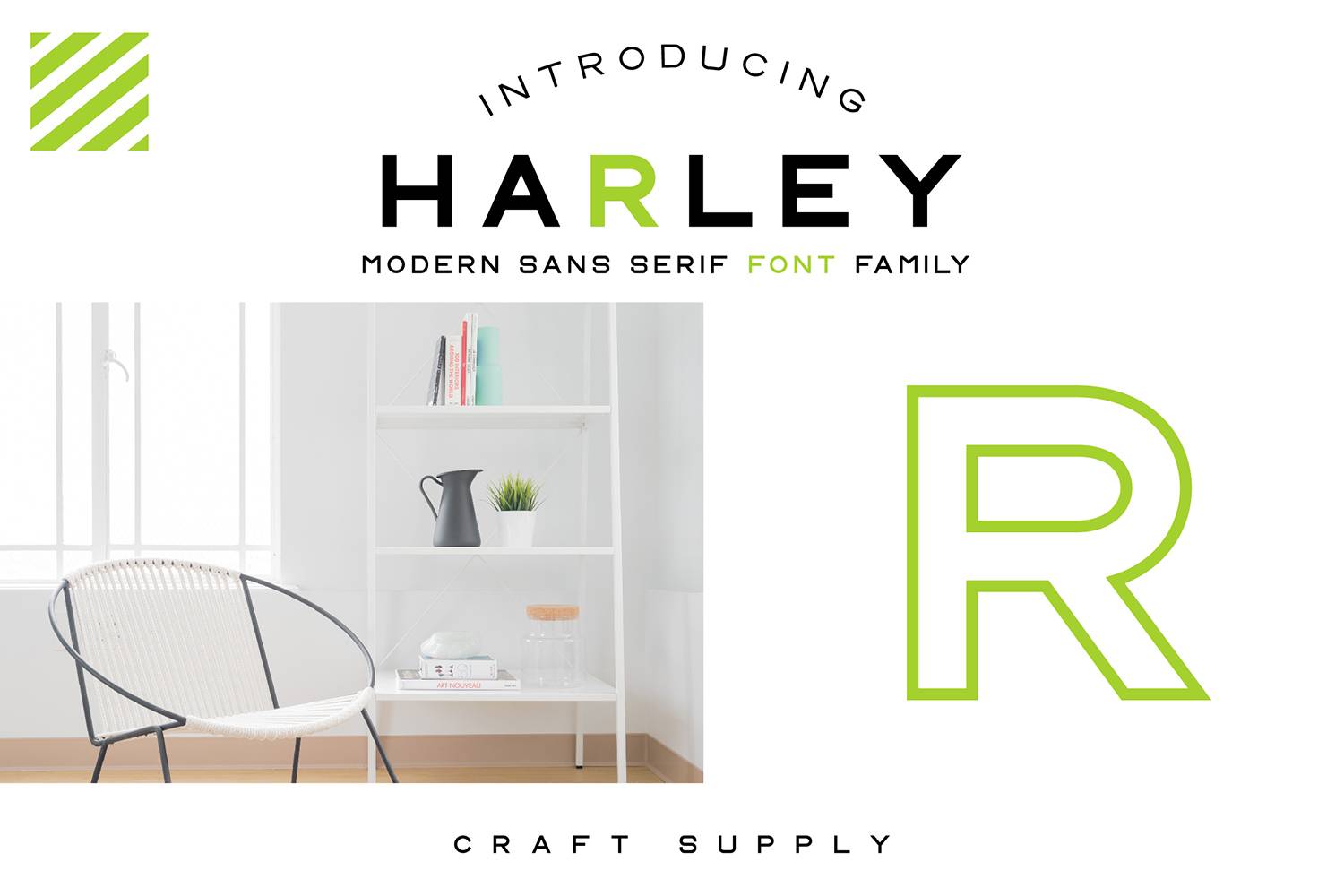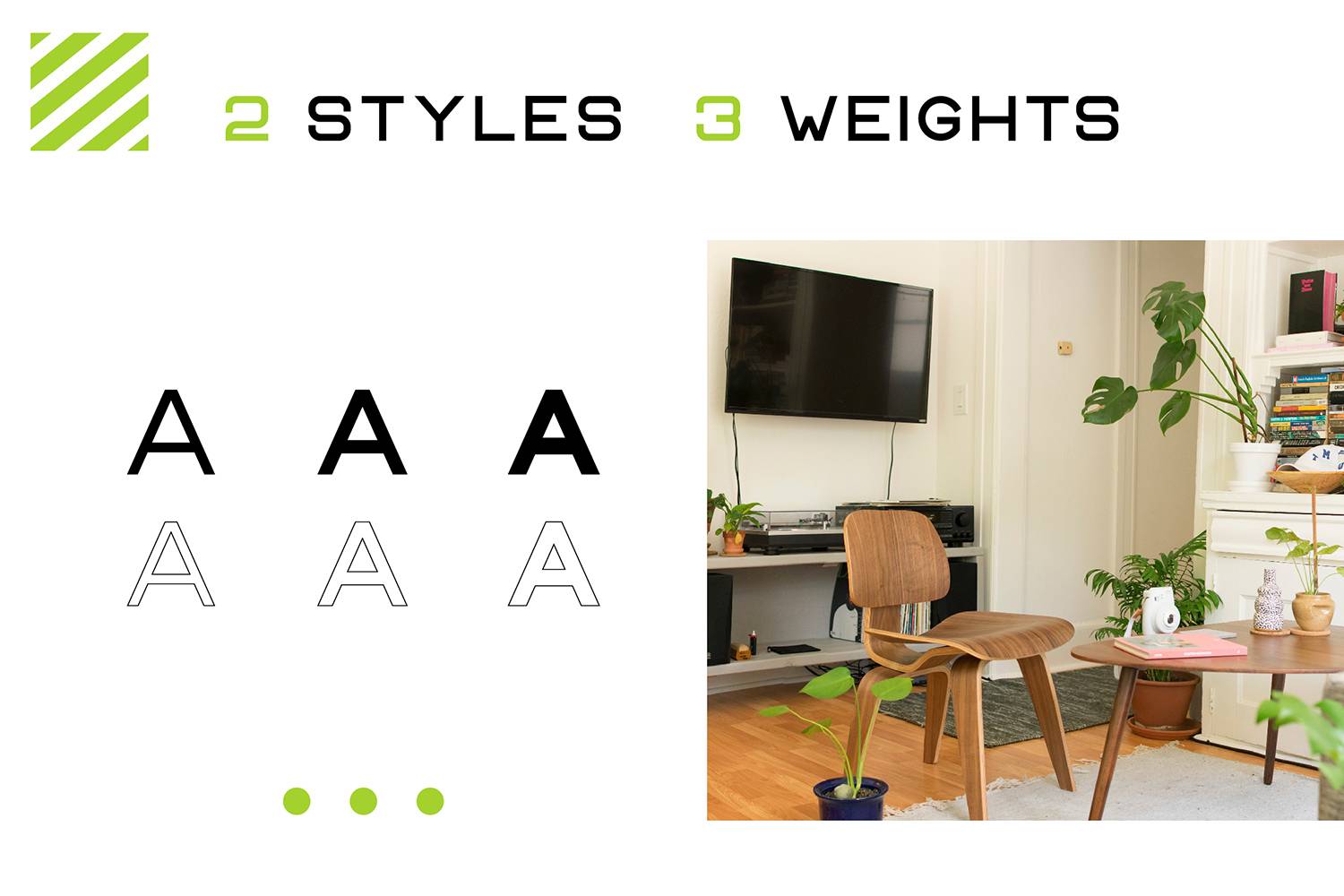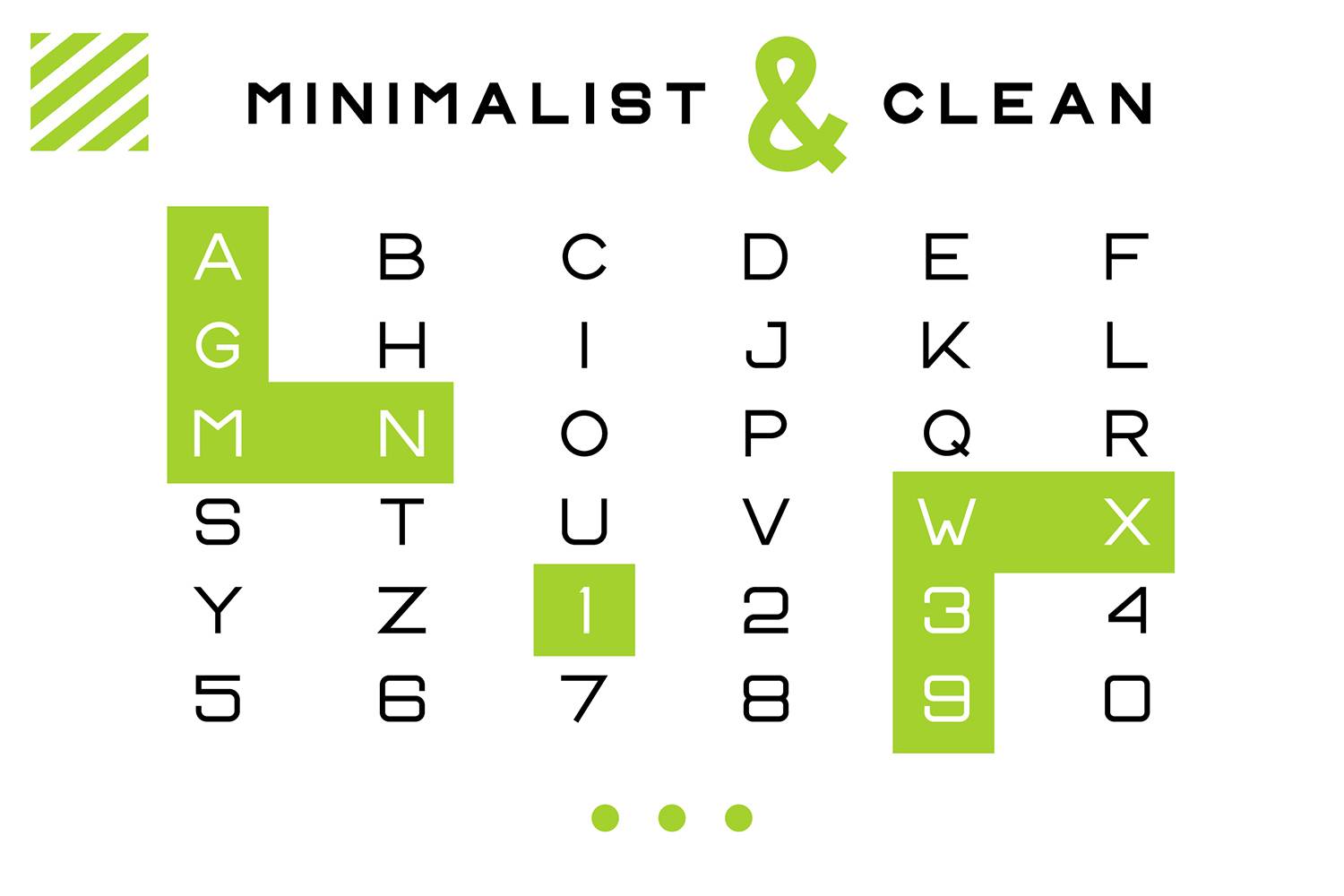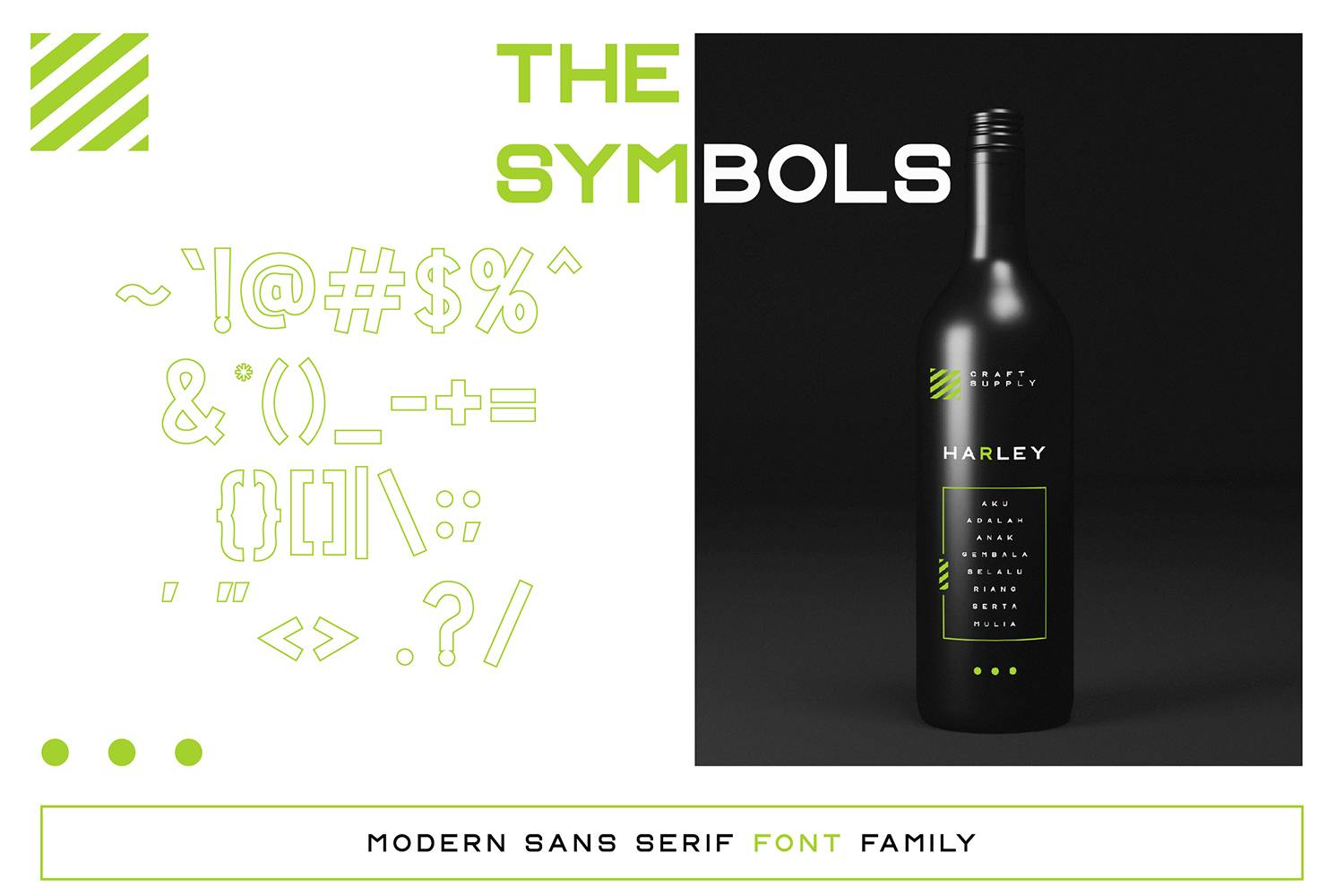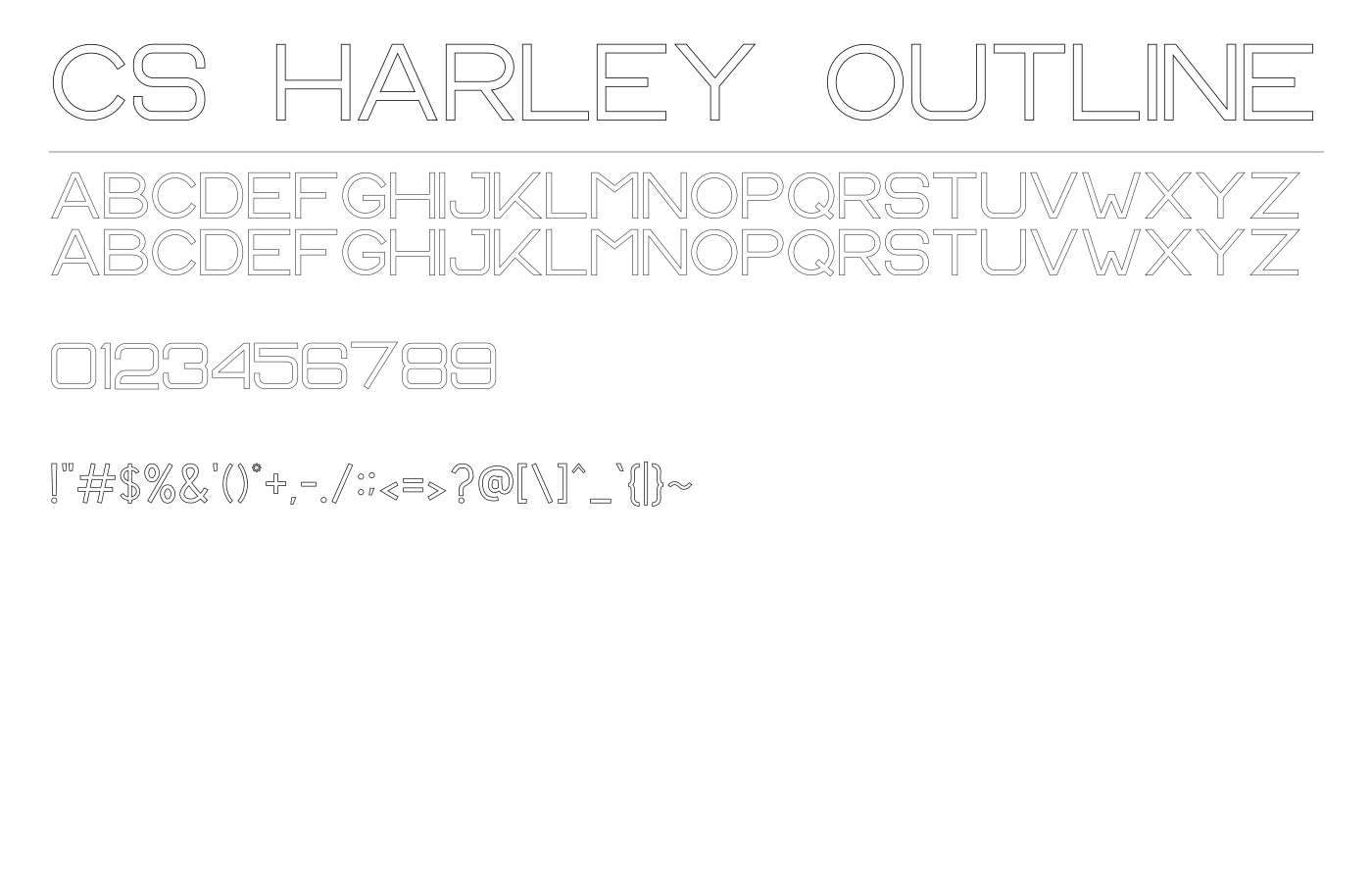
CS Harley Outline is a modern, geometric sans serif font characterized by clean, thin lines and a precise, technical appearance. Its outline style gives it an airy and futuristic feel, making it ideal for contemporary branding, tech-oriented designs, and sleek, minimal headlines where clarity and style are key. This font brings a fresh, sophisticated edge to digital and print projects that aim for a modern, innovative look.
CS Harley Font
About CS Harley Font
| Font family | CS Harley Font |
| Designer | Craft Supply Co. |